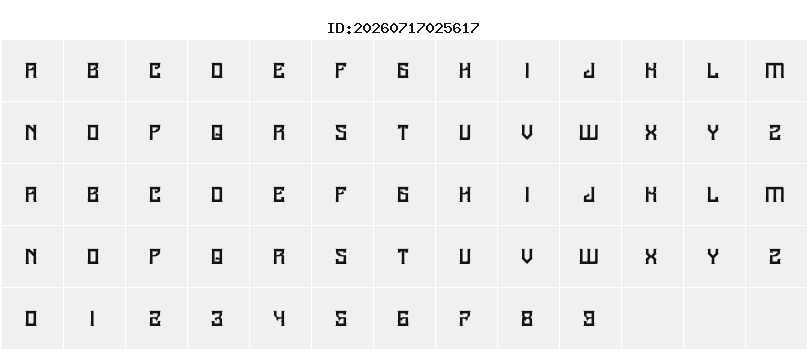
About A25-KAMADJAJA.otf
A25-KAMADJAJA.otf is a modern, elegant sans-serif font designed for ultimate readability and visual harmony. Perfect for branding, headlines, web design, and print materials.